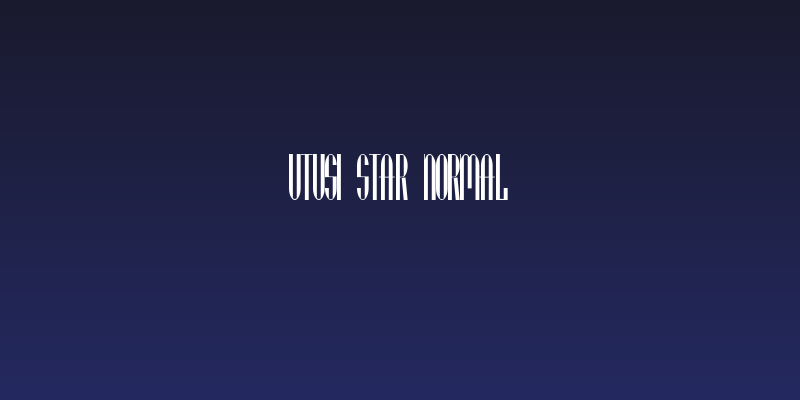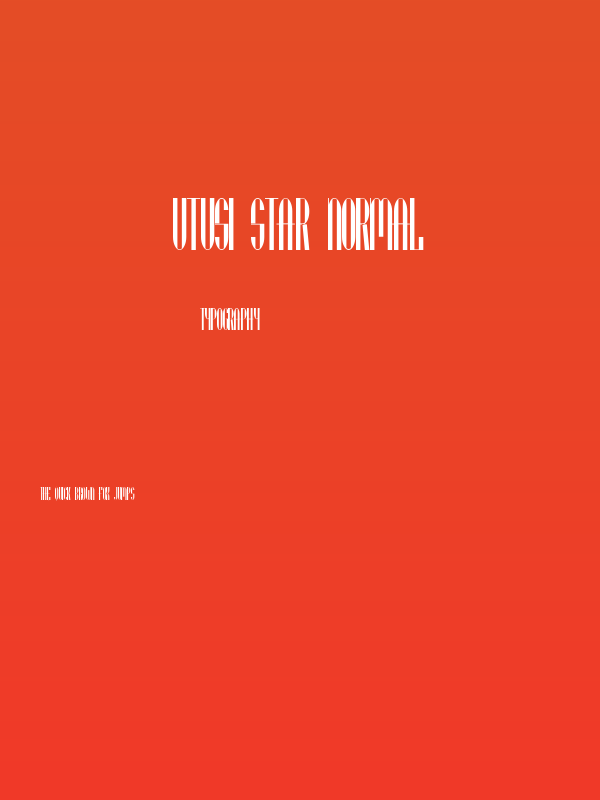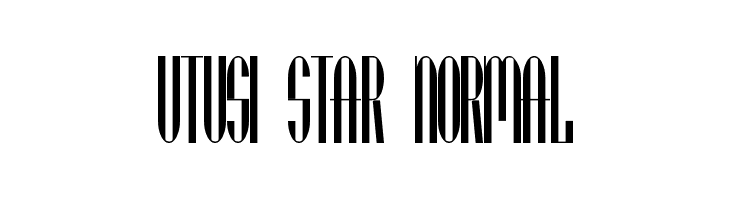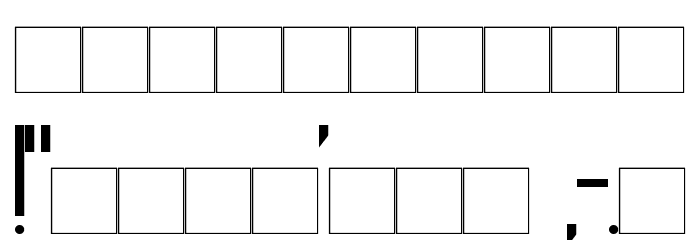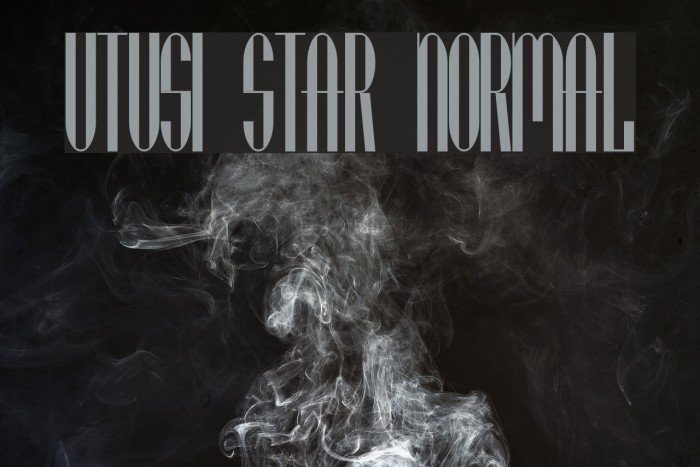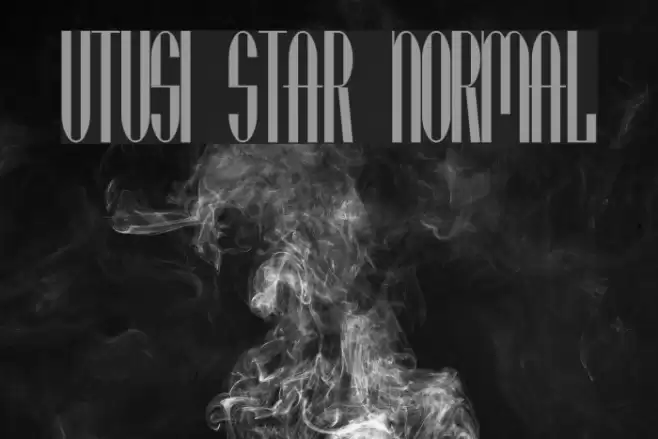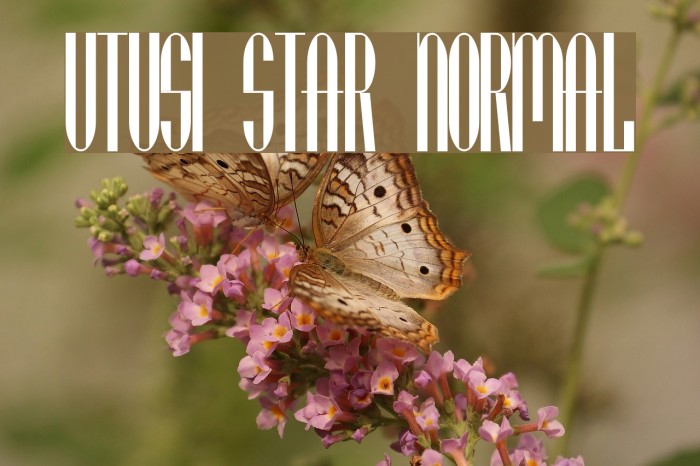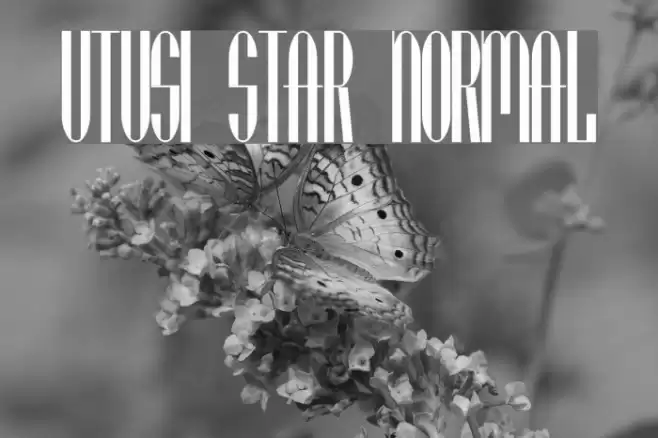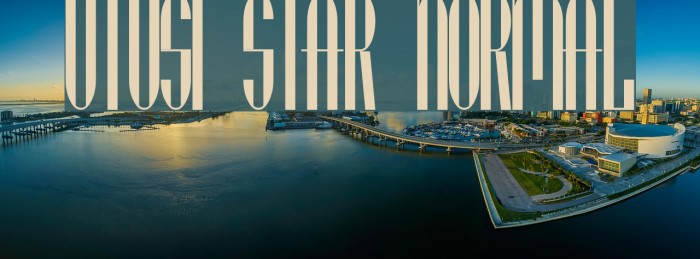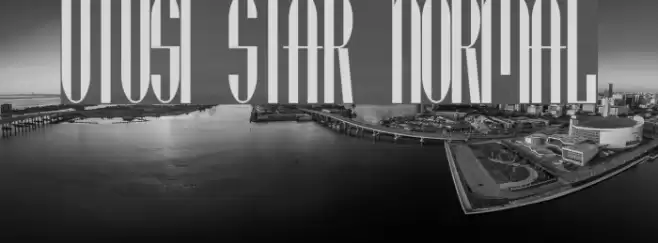
Utusi Star Normal Font
Utusi Star Normal Description
This font features an elongated and narrow design, characterized by its tall, slender letterforms. The uppercase letters exhibit a high level of verticality, with minimal horizontal strokes, creating a striking and modern appearance. The font's geometric structure is evident in its clean lines and sharp angles, which contribute to its contemporary aesthetic. The lack of lowercase letters and numerals suggests a focus on display purposes, making it ideal for headlines or titles where a bold statement is desired. The spacing between characters is tight, enhancing the compact and cohesive look of the text. Overall, this font's unique style and high contrast make it a standout choice for projects requiring a modern and eye-catching typeface.
| Proposed Projects | Ideal for headlines, posters, branding, and any project requiring a bold, modern statement. |